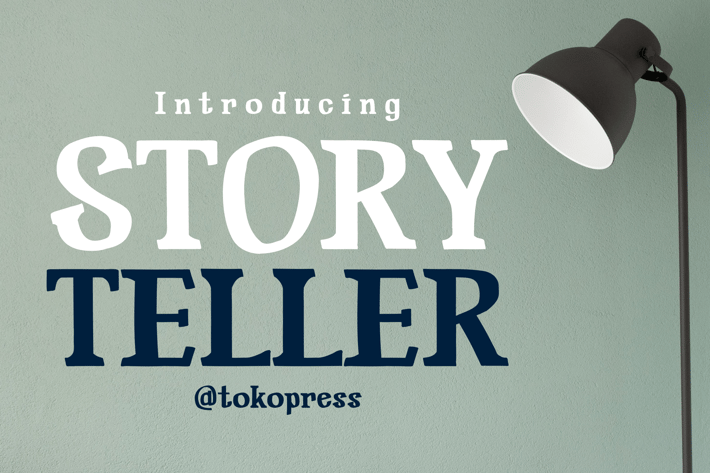
Storyteller - Girly Font
Storyteller – Feminine Serif Font for Lifestyle & Editorial Use
Storyteller is a playful and emotional serif font that brings warmth and softness to every word. With subtly bouncy baselines, rounded terminals, and full-bodied curves, this font blends a nostalgic tone with friendly readability. Its expressive letterforms carry a cozy, handwritten charm that fits both modern elegance and classic storytelling aesthetics.
From wedding invitations to bedtime books, this font delivers heart in every letter. Its warm vibe and soft proportion make it ideal for branding, packaging, quotes, or anything that needs to feel personal and authentic.
Whether you're a designer working on a wedding suite, crafting a dreamy Instagram quote post, or illustrating a children's book cover, Storyteller offers the perfect blend of heart and personality. Its friendly feel and inviting character style make it perfect for emotionally driven content like journals, gift packaging, and lifestyle blogs.
From romance to retail, this font tells your message with care and charisma.
Key Features :
- Bouncy serif structure with high readability
- Rounded edges and soft proportions for a heartfelt tone
- Upper and lowercase support for dynamic typesetting
- Strong impact in both print and digital layouts
Ideal for:
- Wedding invitations and event branding
- Children’s books and bedtime stories
- Feminine product packaging
- Motivational quotes and journals
- Instagram content and lifestyle blogs
- Regular and Outline version